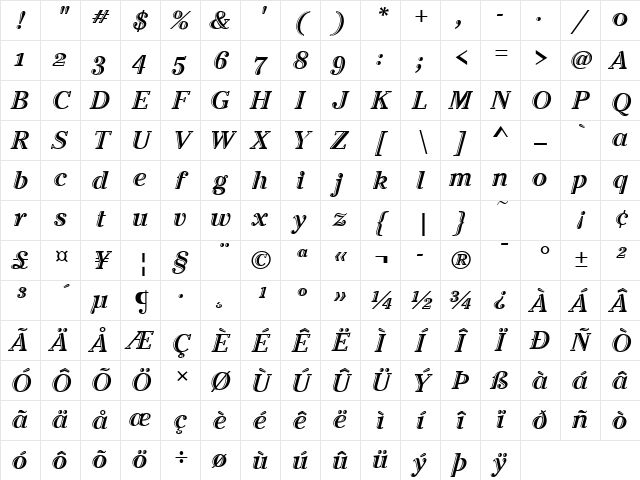
Complete Cheltenham Htd OS ITC TT Italic glyph index. Displaying only characters natively supported by Cheltenham Htd OS ITC TT Italic font.
Cheltenham Htd OS ITC TT is a composed and adaptable typeface that performs quietly and consistently across a wide range of design contexts. The slanted form adds forward momentum and visual energy.